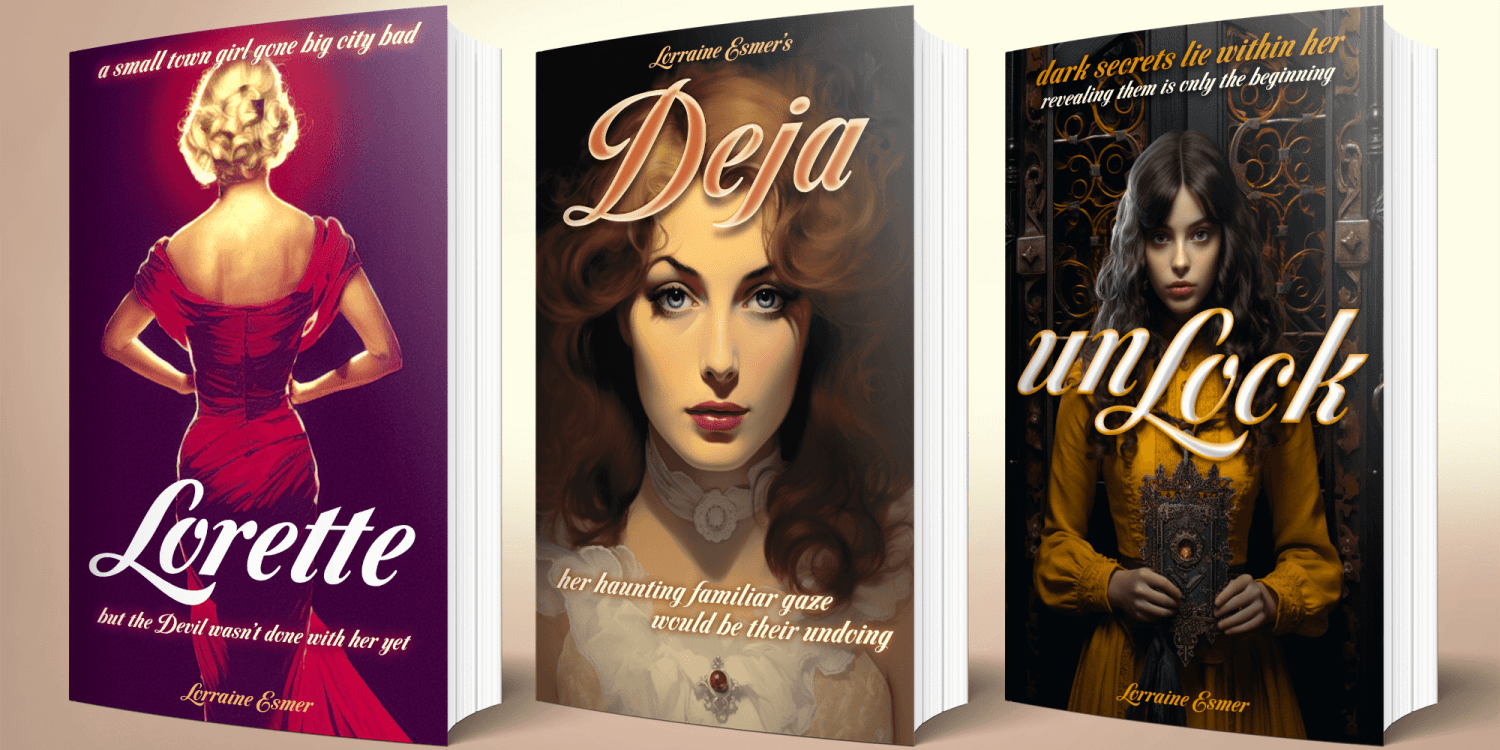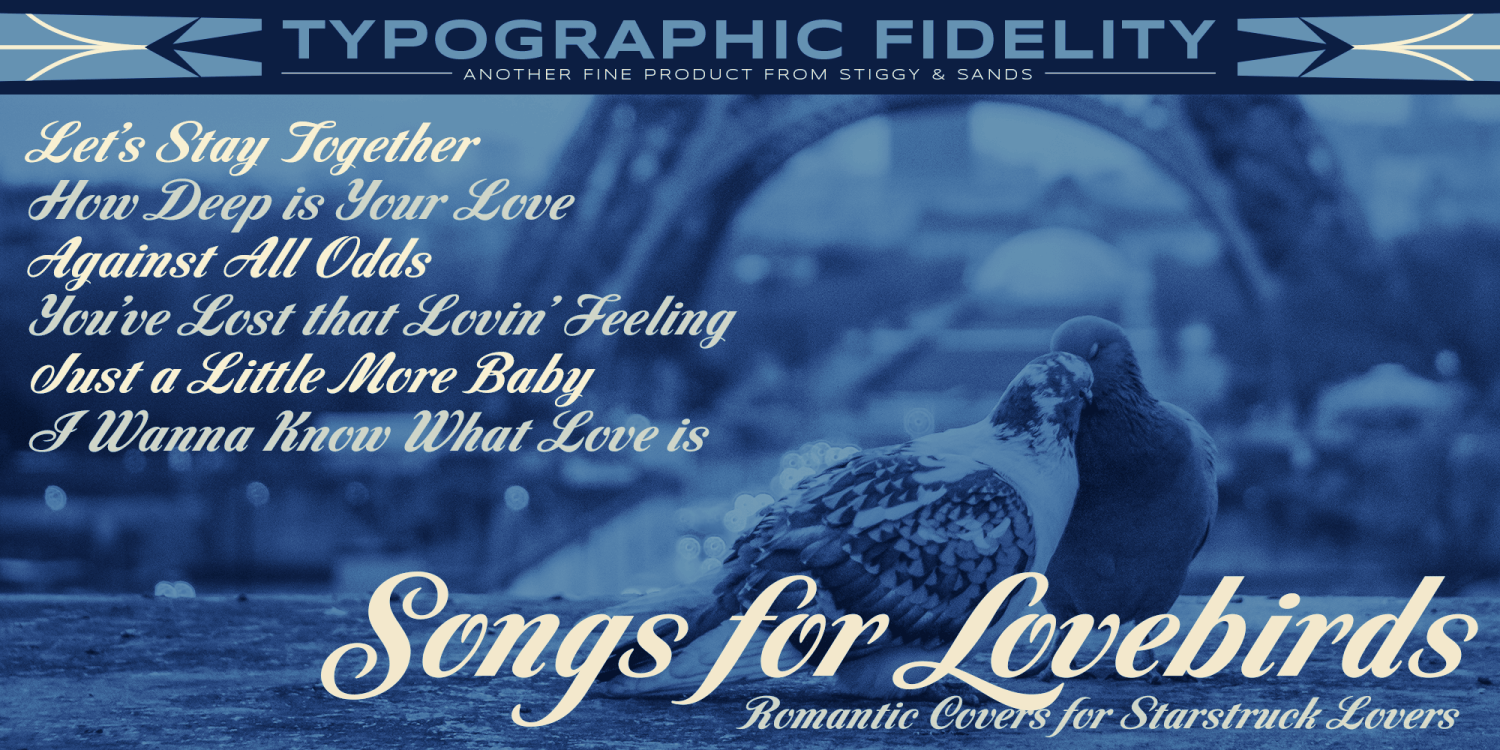
About Lorette
A Vintage Script for Romance Novels. Lorette began as a digitization of a film typeface from LetterGraphics known as "Laurel". The original specimen included standard Capitals, Lowercase, Numerals, and minimal punctuation, for a bare bones…